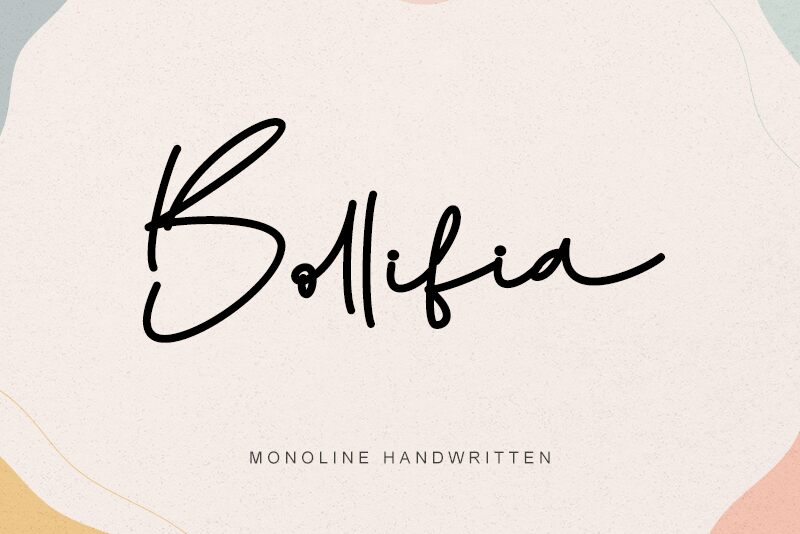
Bollifia - Personal use
Bollifia, a creation by Letterara, is a font that effortlessly captures the personal touch and flair of a signature with its handwritten style. Its elegant strokes evoke the beauty of fluid, handcrafted calligraphy, while maintaining an airy and light presence on the page. Each character is designed to convey warmth and authenticity, making it ideal for invitations, branding projects, and personalized stationery.
Its aesthetic appeal lies in its ability to mimic the natural variations in pressure and movement found in genuine penmanship. Bollifia's use can transform any project into something that feels intimate and bespoke; it's particularly well-suited for applications where a touch of sophistication and individuality is desired.